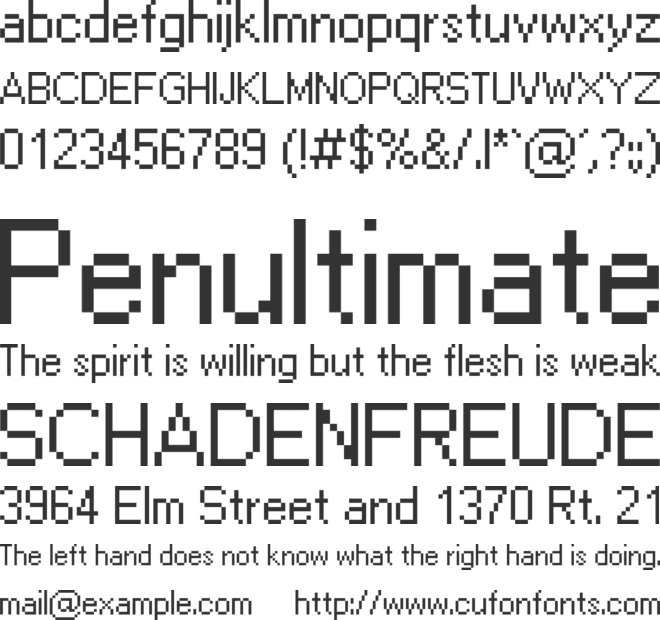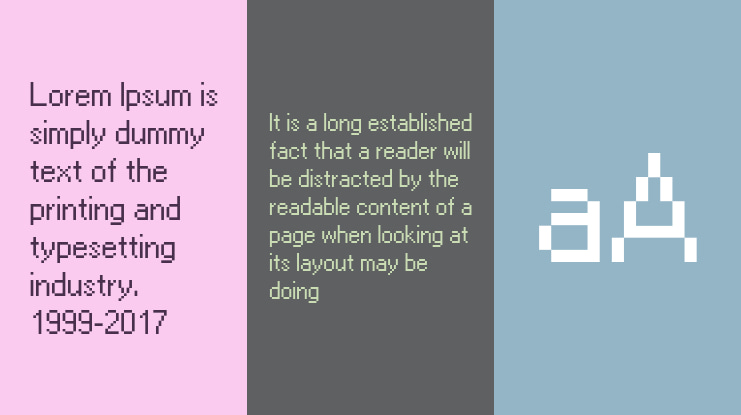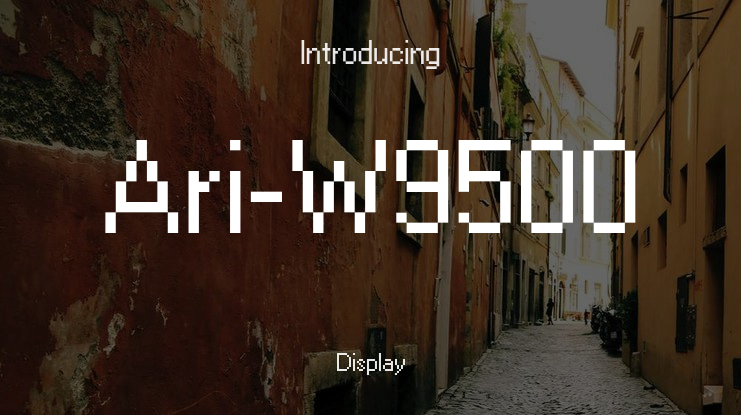
Ari-W9500 Font Family
Catterio Sylt
Ari-W9500 is a pixel font created by Catterio (me), made in fontstruct.com and is free to use by any means.For more information, please visit the homepage of the font: https://fontstruct.com/fontstructions/show/2368522/ari-w9500